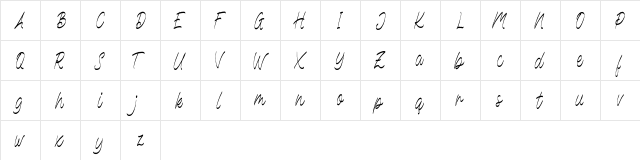
Welldone FREE Regular
Design Context for Welldone FREE Typeface
Welldone FREE is a composed and adaptable typeface that performs quietly and consistently across a wide range of design contexts.